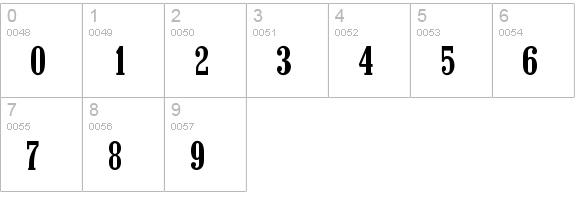
Colonel-Medium is a balanced, medium-weight variant in the Colonel typeface family \xE2\x80\x94 well suited to sub-headlines, navigation, and balanced editorial work.
Colonel-Medium font is a versatile and stylish typeface that exudes sophistication and professionalism. With its balanced proportions and clean lines, Colonel-Medium is perfect for a wide range of design projects, from branding and advertising to editorial and packaging. This font strikes the perfect balance between traditional and modern, making it ideal for both print and digital applications. The best part? Colonel-Medium font is completely free to download at FontsMarket.com. Whether you're a designer looking to add a sleek and polished touch to your work or a business owner in need of a fresh new look for your brand, Colonel-Medium has you covered. Download it today and elevate your designs with this timeless and elegant font.